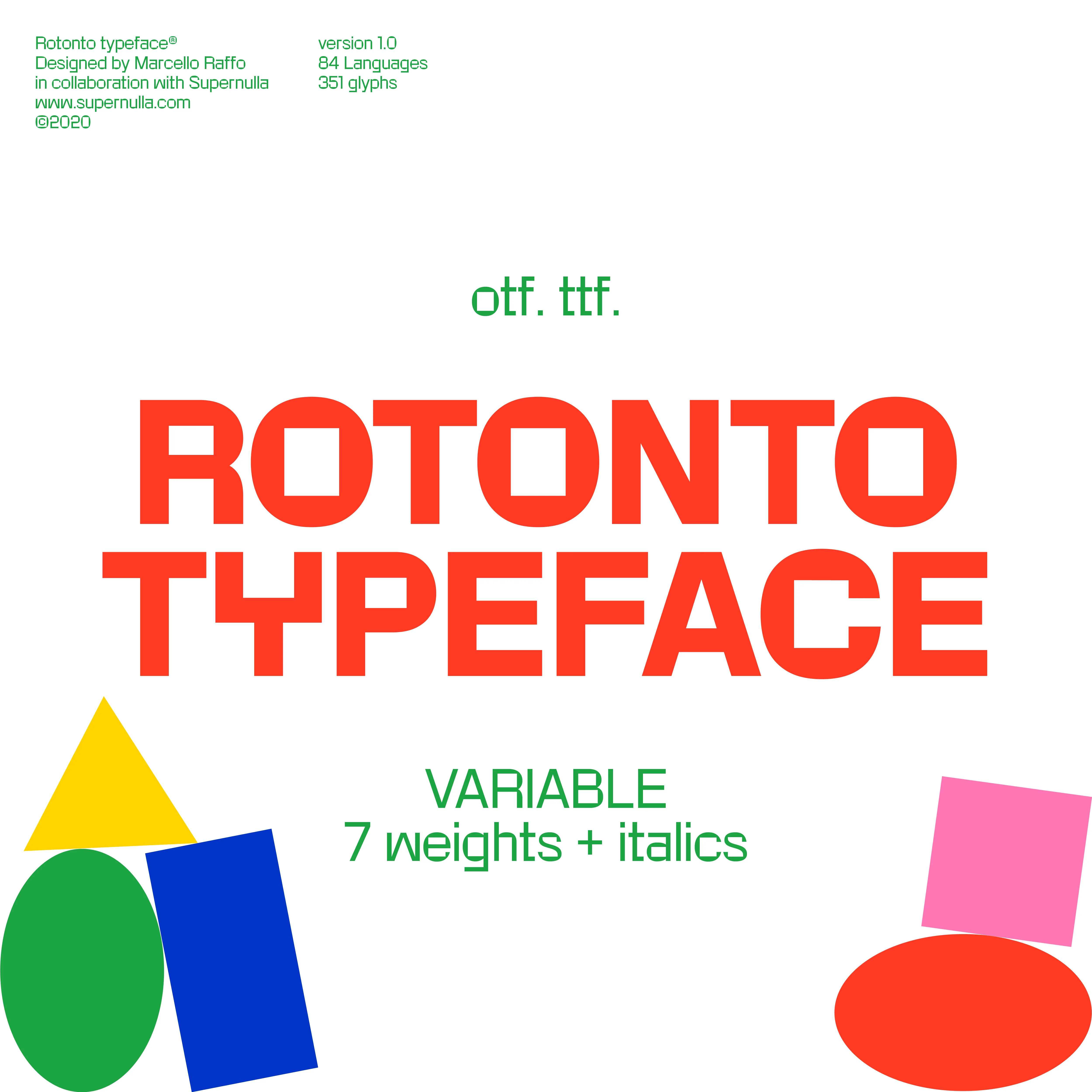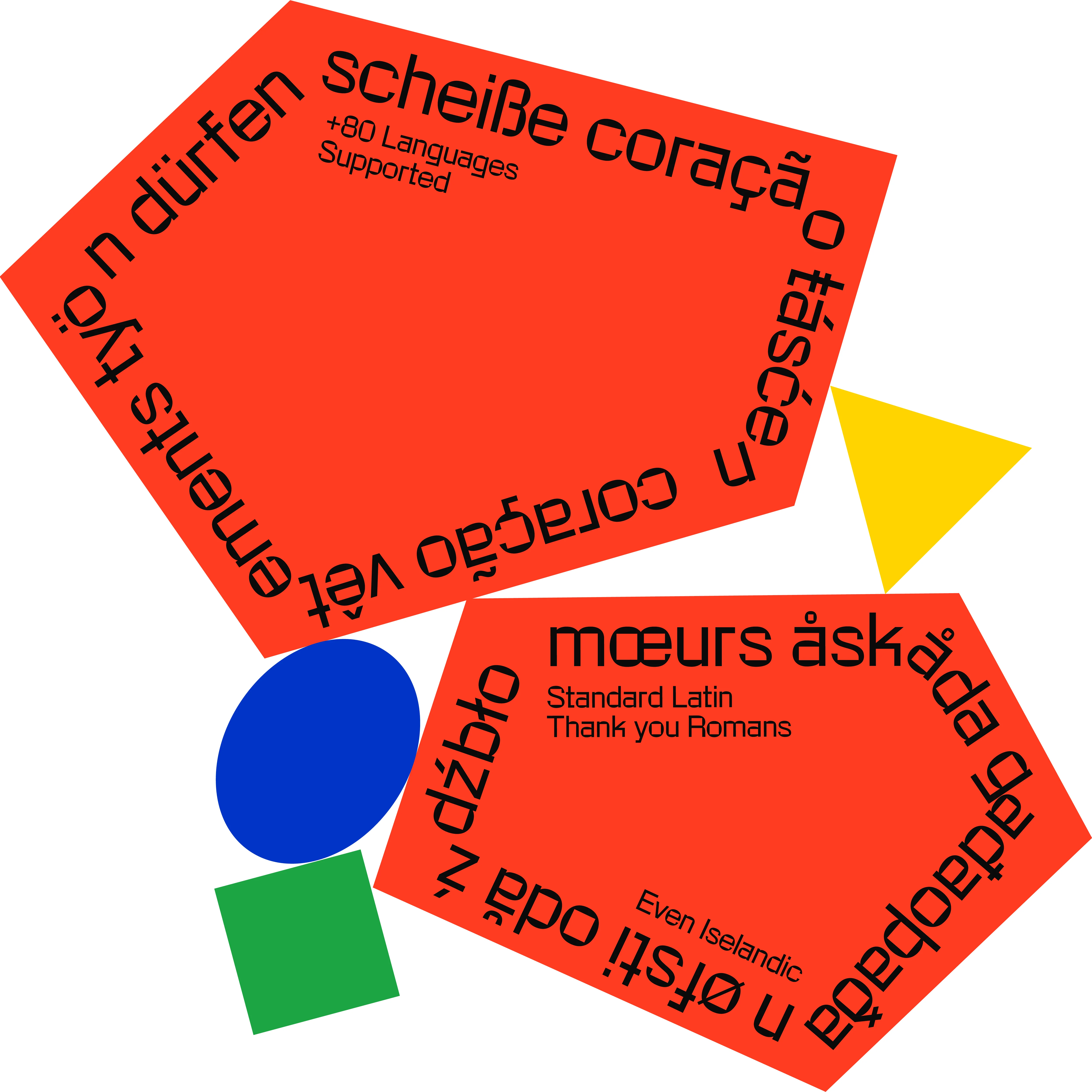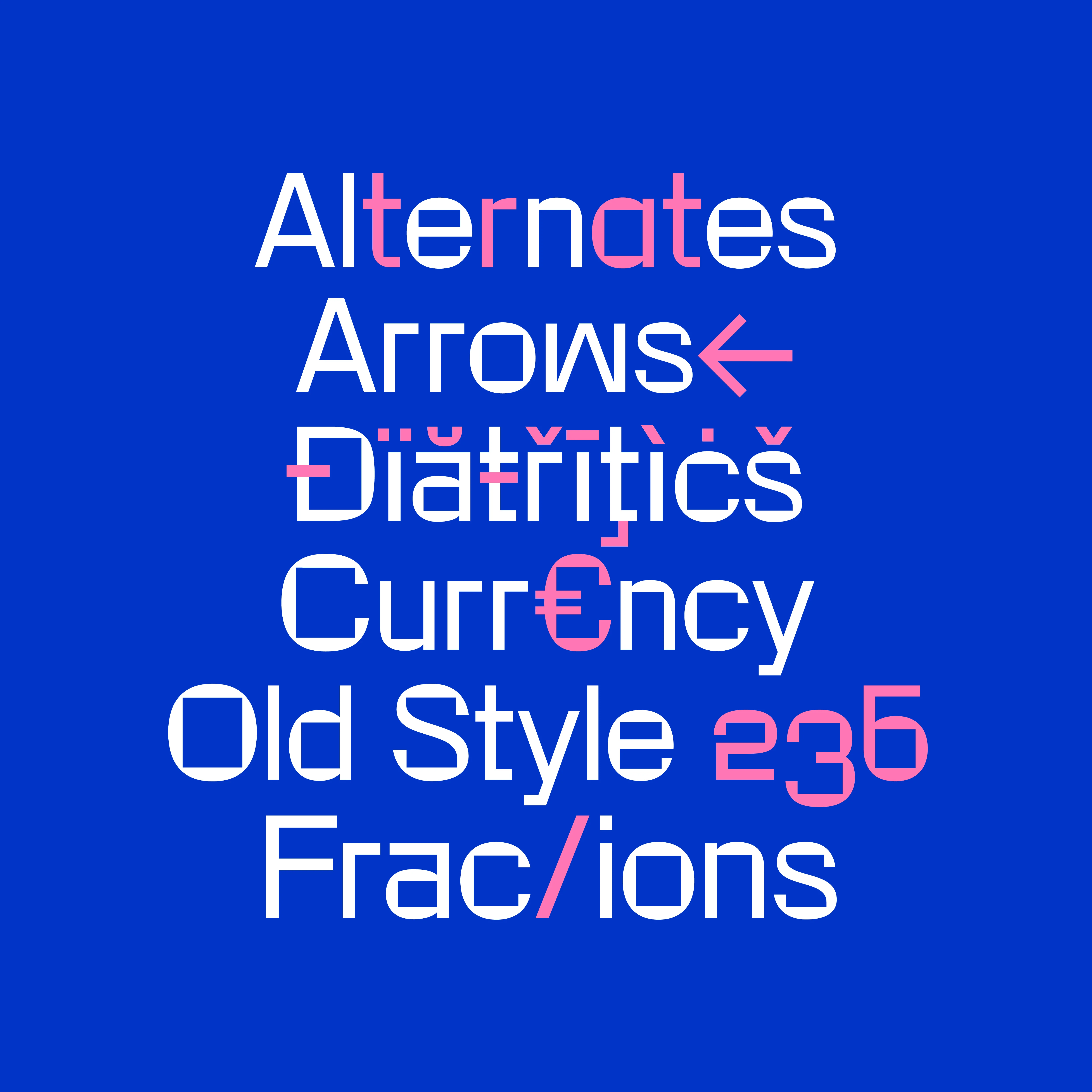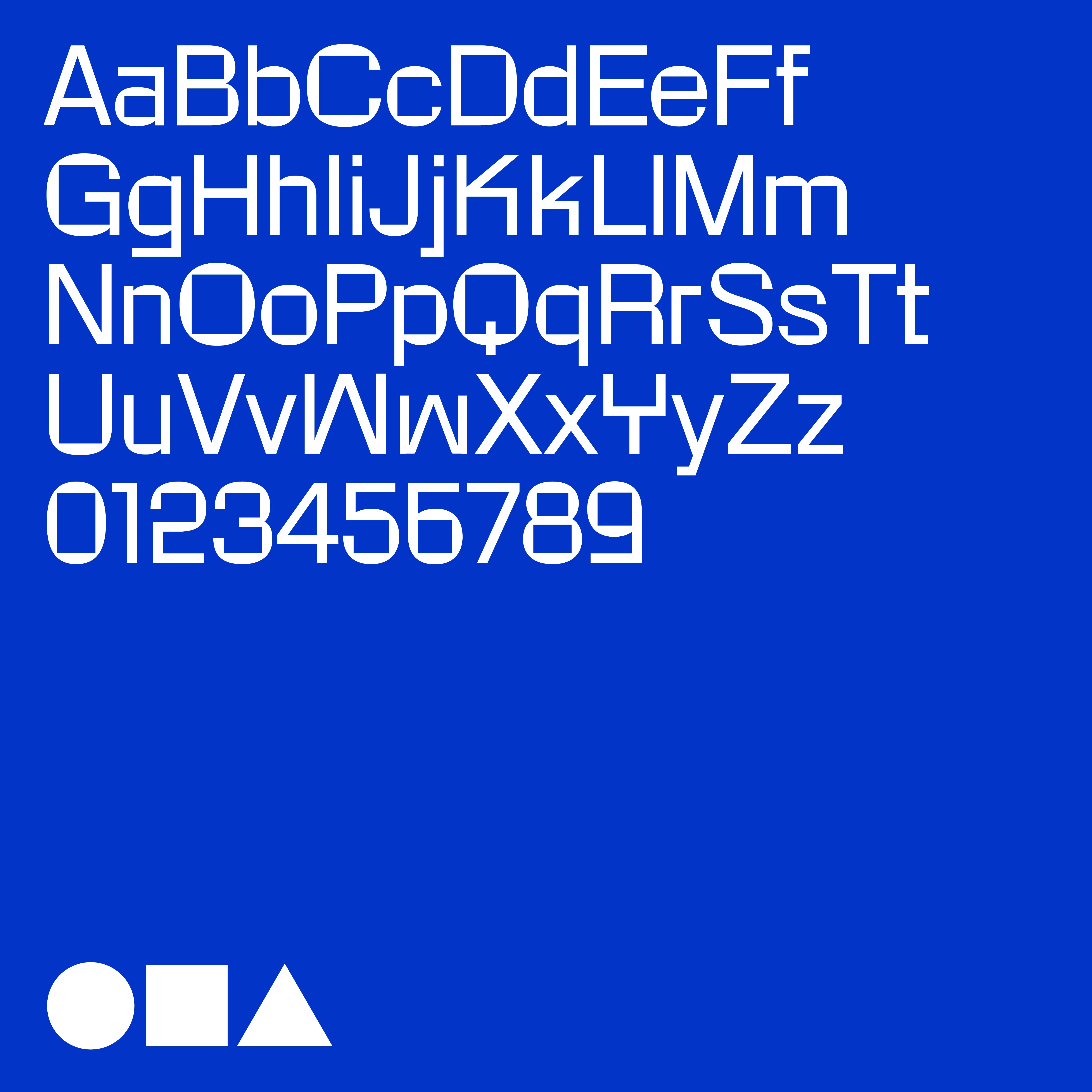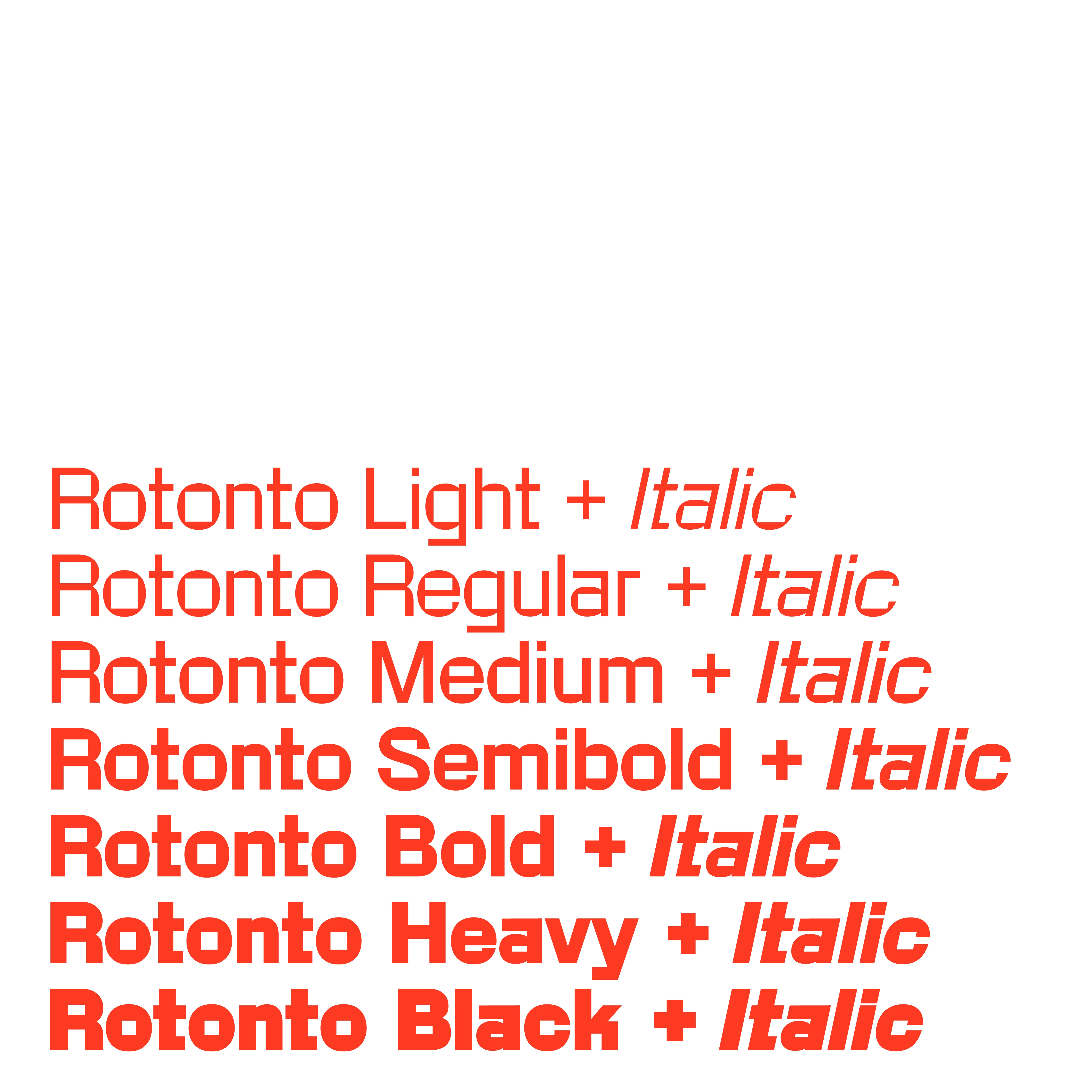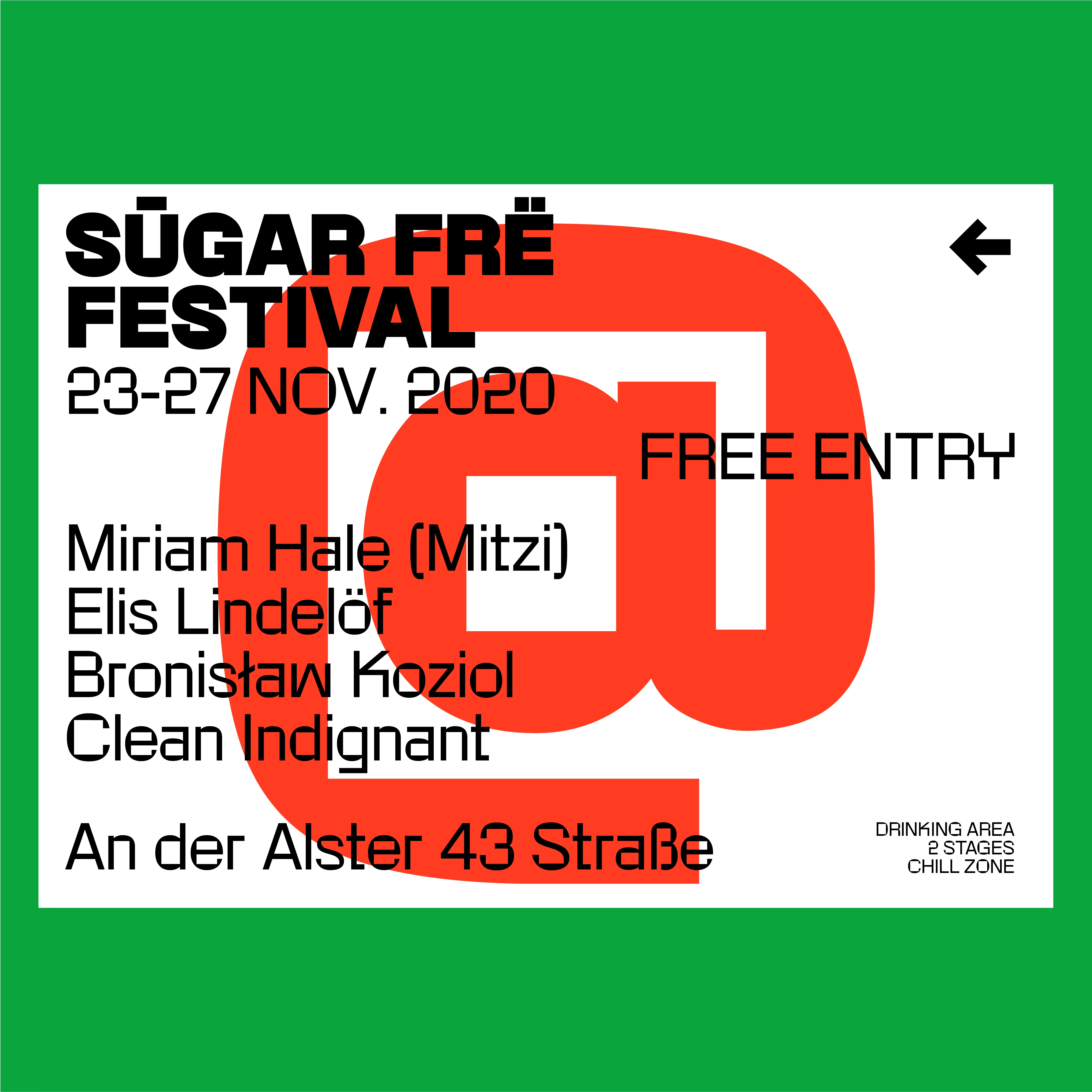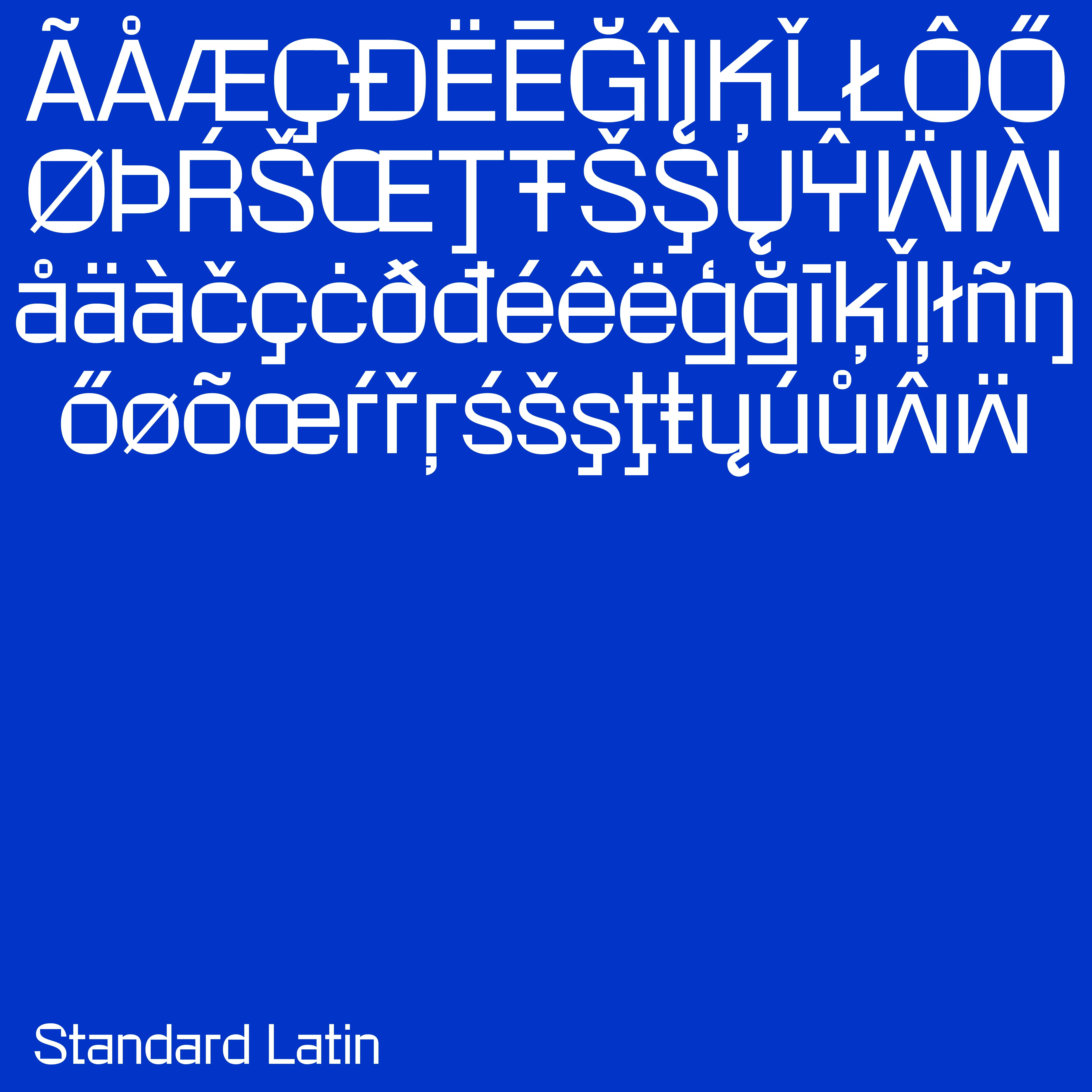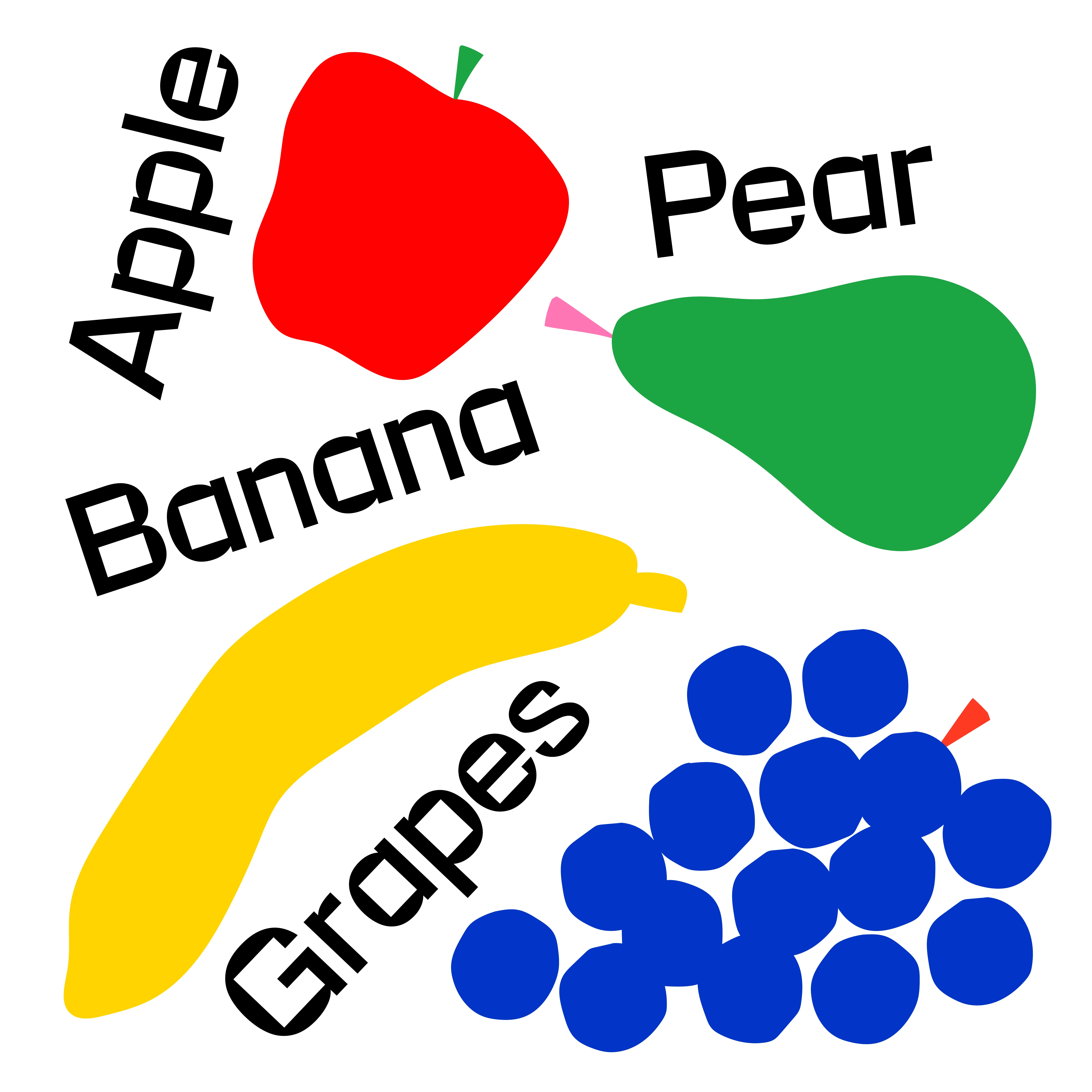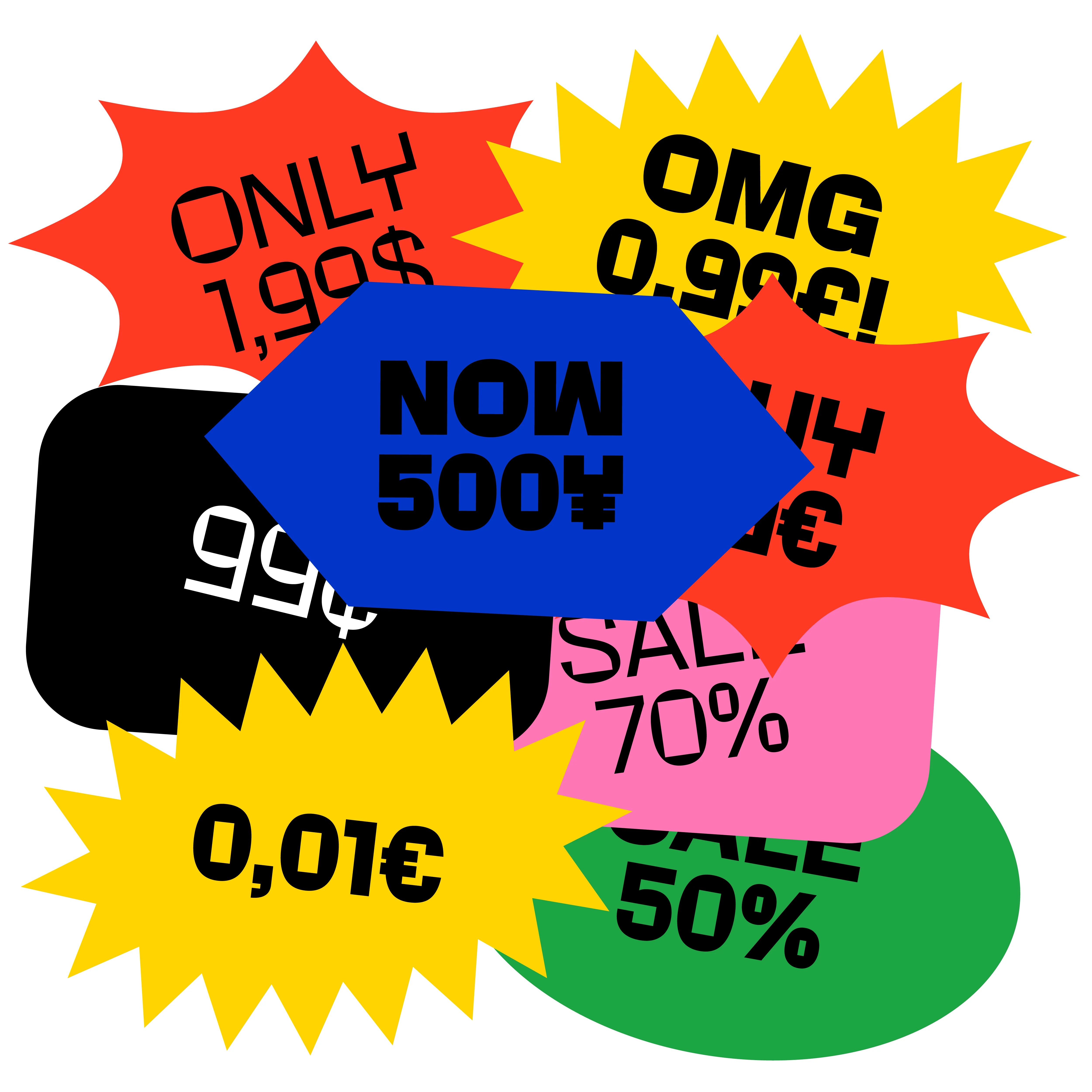
Rotonto
Rotonto is a variable typeface that accentuates the contrast between rigid, square-shaped counters and rounded outlines. Its proportions and overall construction are rooted in the distinctive characteristics of a grotesque typeface, offering versatility across various contexts and applications.
With its unique blend of sharp edges and soft curves, Rotonto strikes a balance that makes it suitable for a wide range of design scenarios, from editorial layouts to branding and beyond.
Rotonto is a variable typeface that accentuates the contrast between rigid, square-shaped counters and rounded outlines. Its proportions and overall construction are rooted in the distinctive characteristics of a grotesque typeface, offering versatility across various contexts and applications.
With its unique blend of sharp edges and soft curves, Rotonto strikes a balance that makes it suitable for a wide range of design scenarios, from editorial layouts to branding and beyond.